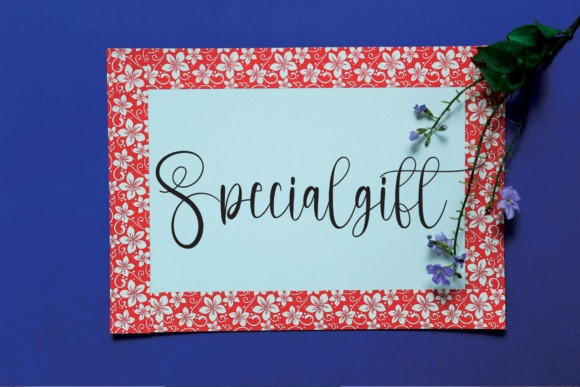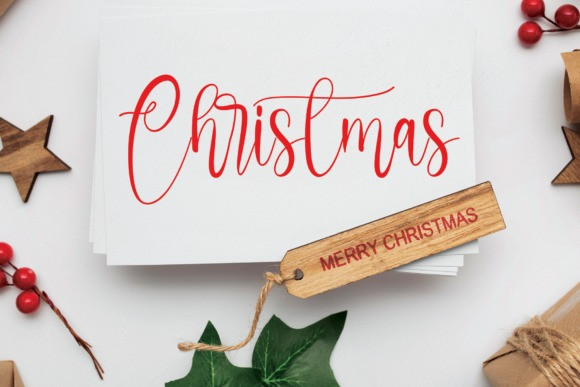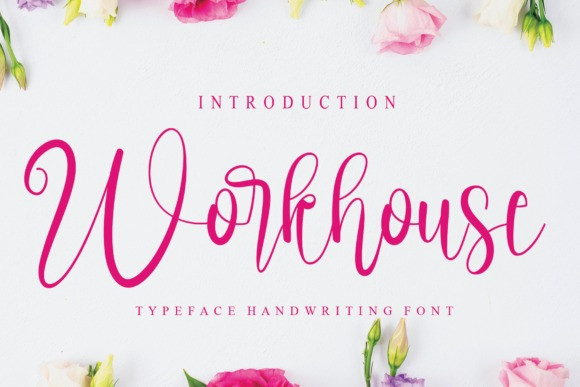
Workhouse Font
Workhouse Script Font is a stylish handwritten font, perfectly suited for your most exquisite projects. It will look stunning on wedding invitations, product designs, extravagant labels, watermarks, and much more!